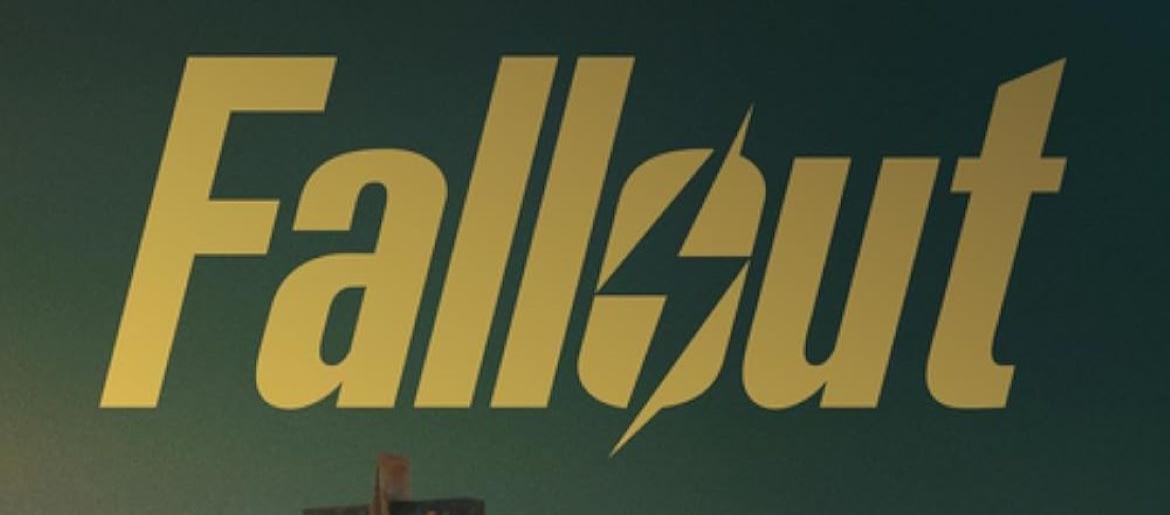
Fallout Font
The Fallout Font is instantly recognizable, perfectly capturing the retro-futuristic vibe of the franchise. Inspired by the custom typeface Overseer, it combines bold sans-serif lettering with subtle curves and thick strokes that echo mid-20th-century industrial design. The result is a vintage aesthetic that still feels modern, rugged, and uniquely Fallout.
The Fallout series merges dark humor, survival, and retro-futurism, creating a setting where the past and future collide. From radioactive wastelands to quirky towns, the franchise’s visual identity—including its font—reinforces its unique mix of danger, adventure, and nostalgia. Just like the typeface, Fallout leaves a lasting impression on players and fans alike.